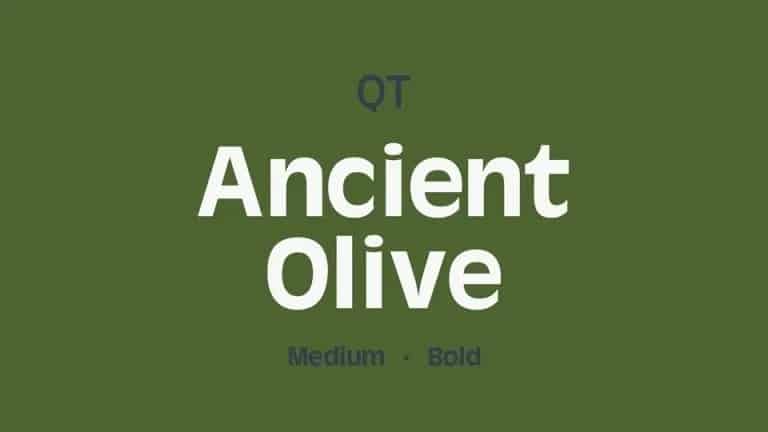
Ancient Olive Sans Serif Font
Ancient Olive Font is a modern and Minimal Sans Serif typeface, Ancient Olive Font Sans can keep the minimalism at its level best and is a Perfect choice for Creative and Classic Typography Designs with unique typography.
This font family pairs well with basic sans serif fonts, or looks great paired within it’s own family! This font is perfect for headings but also works well as smaller body text!